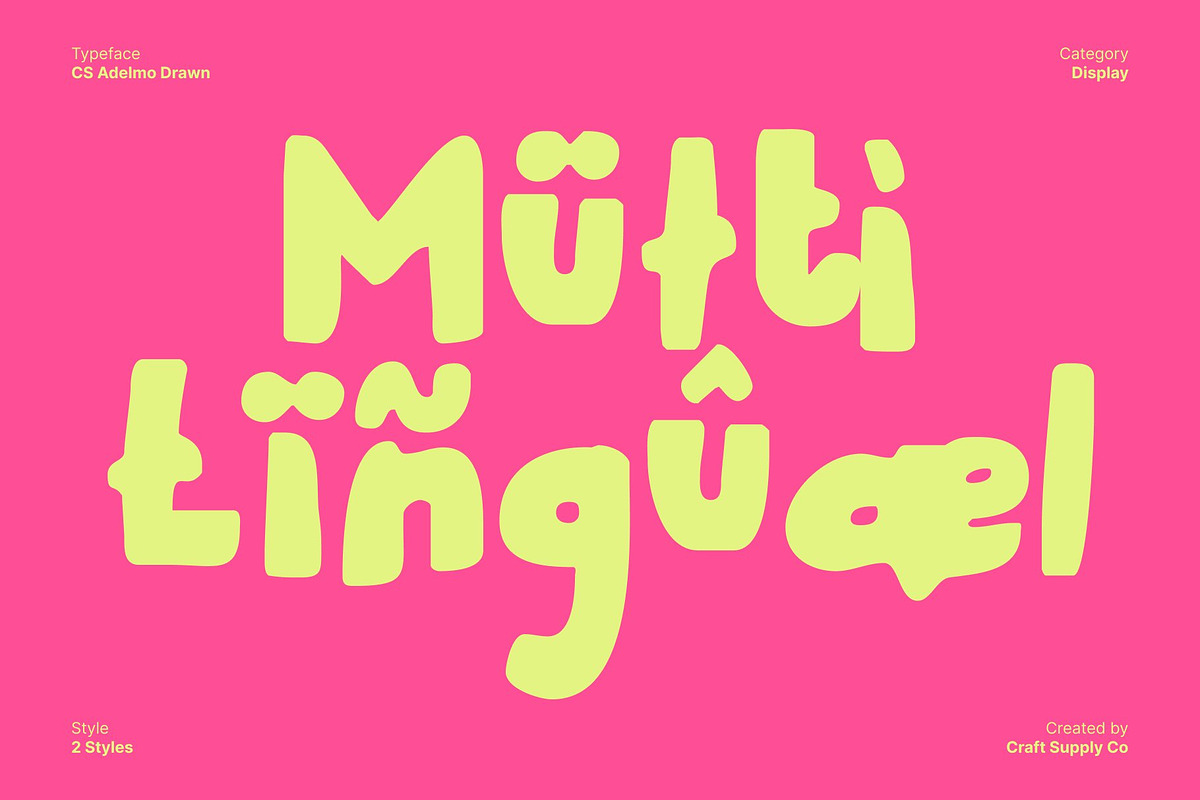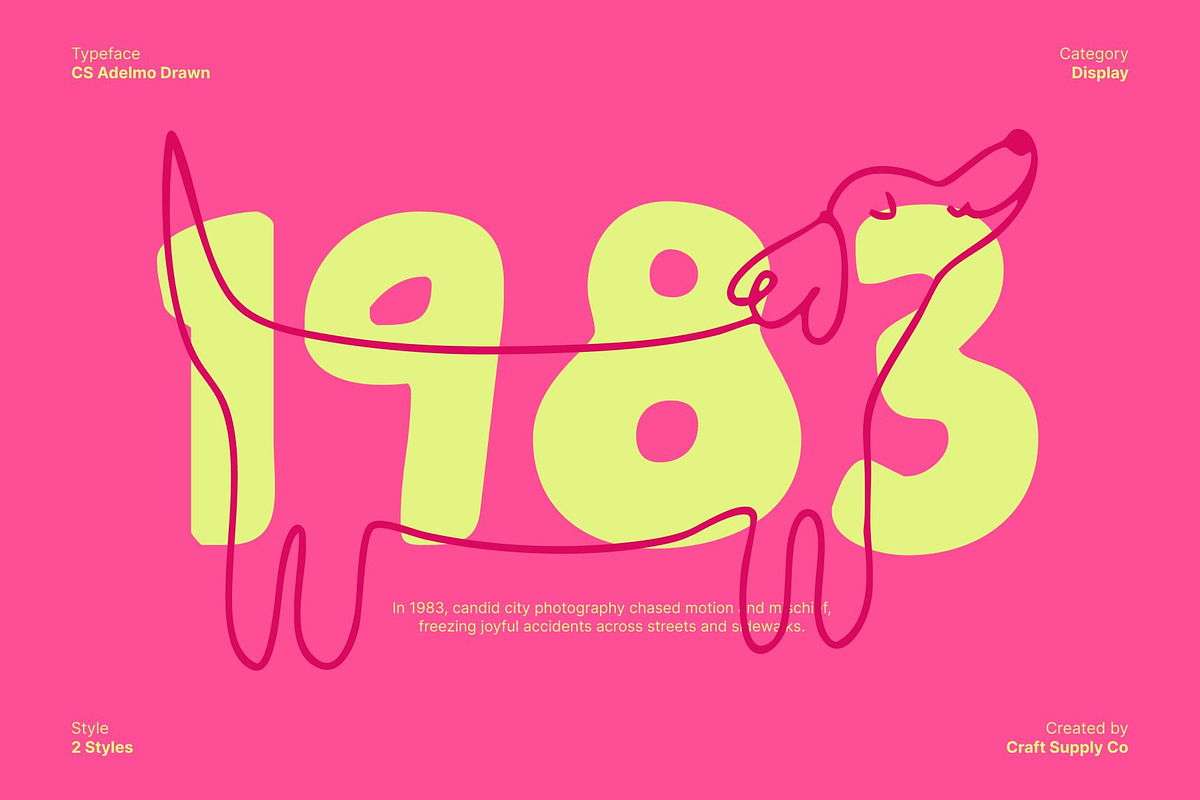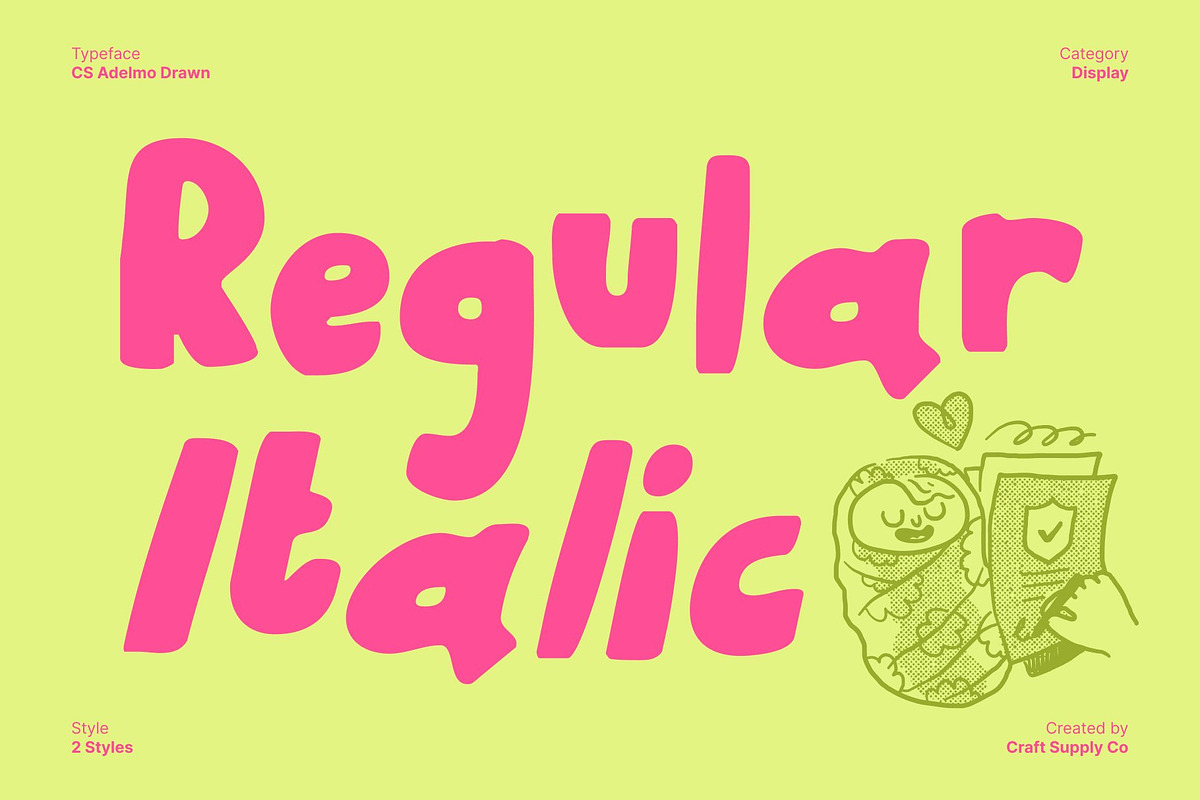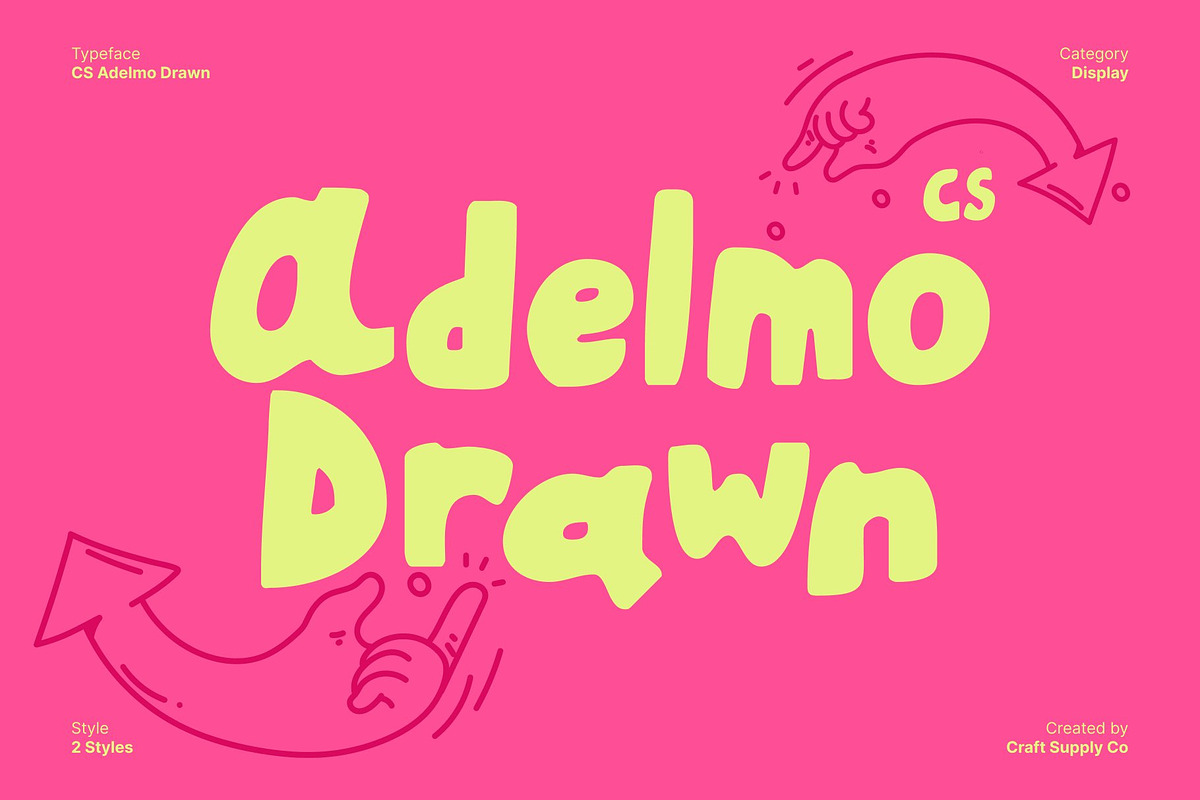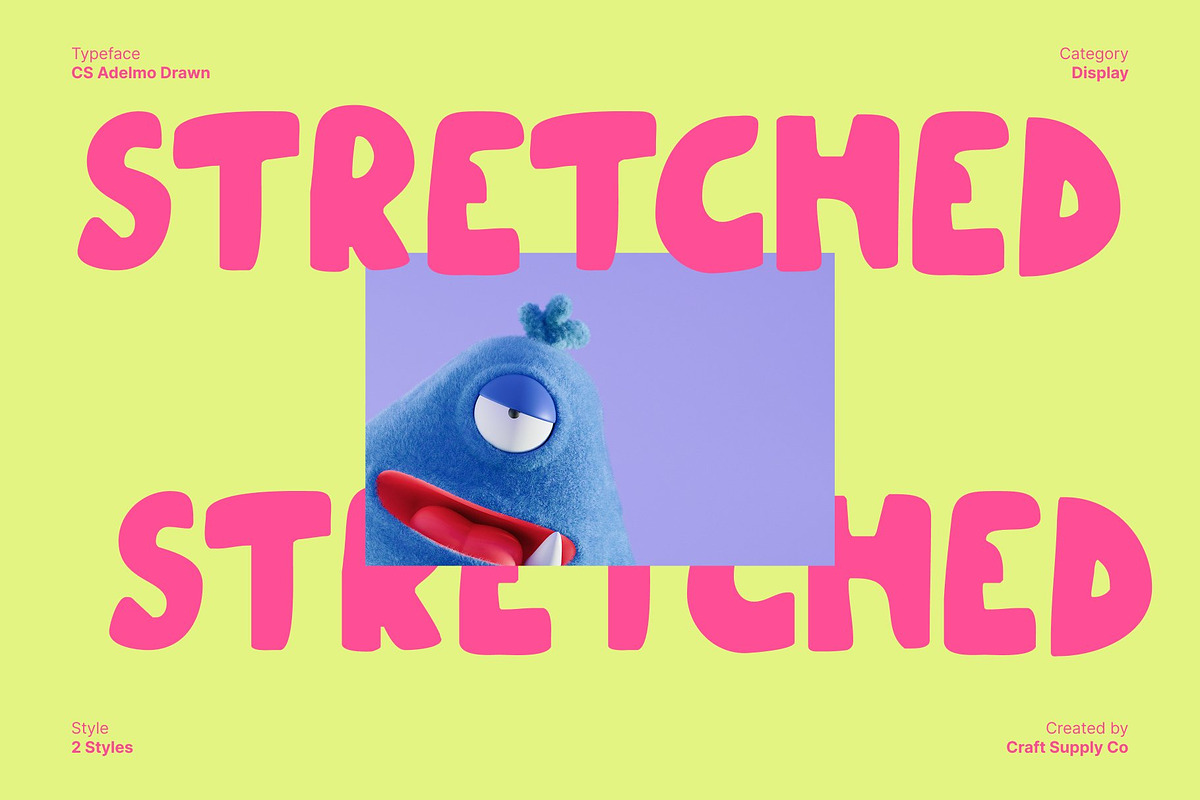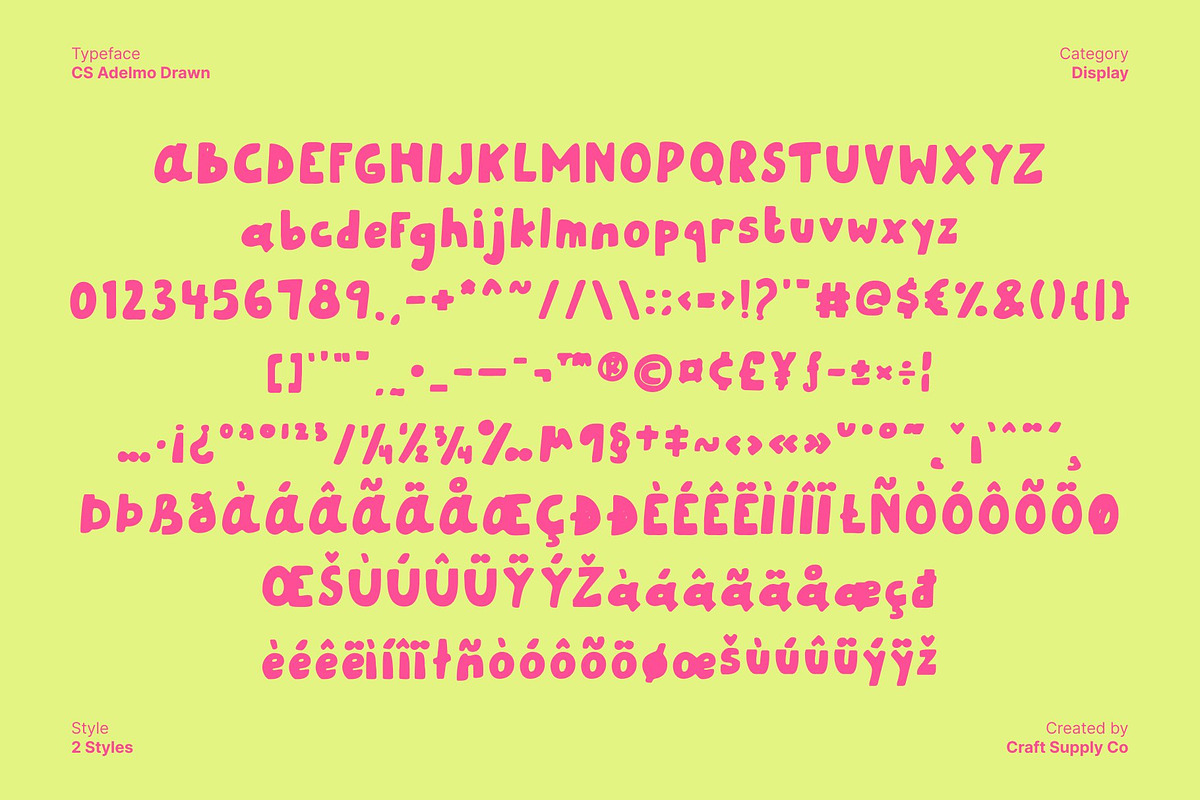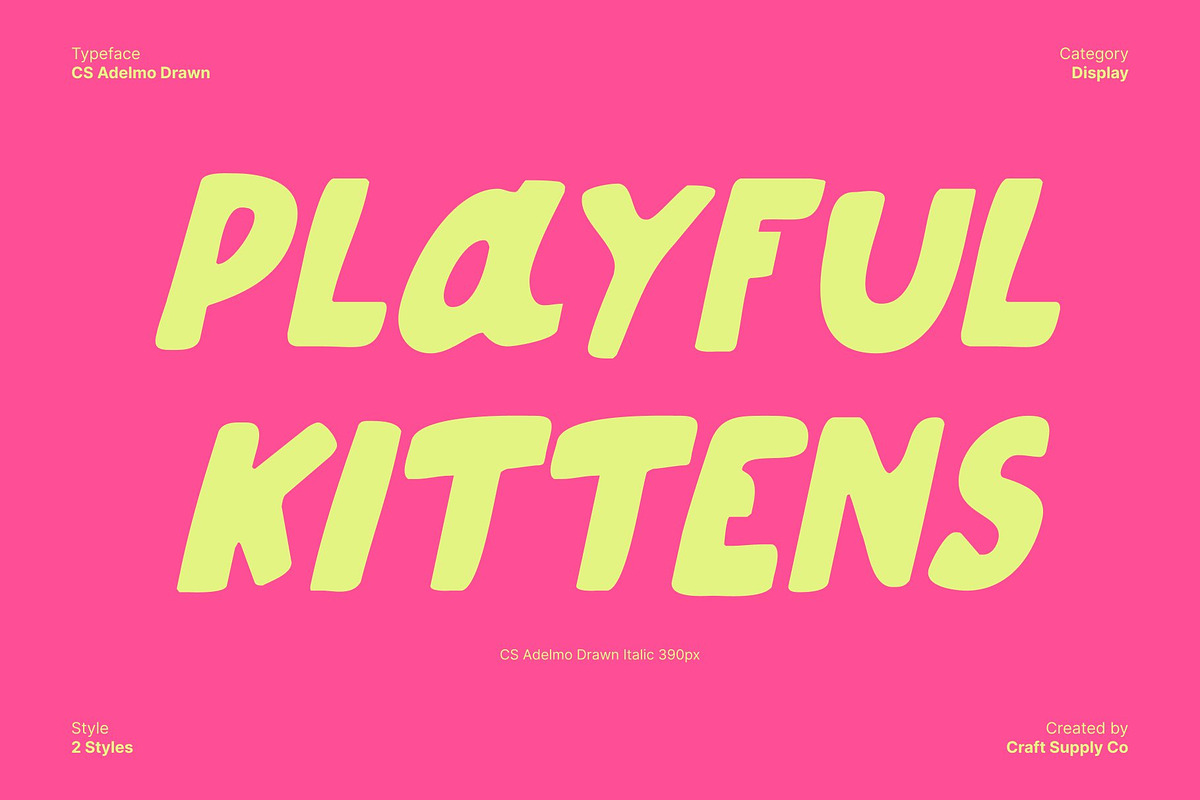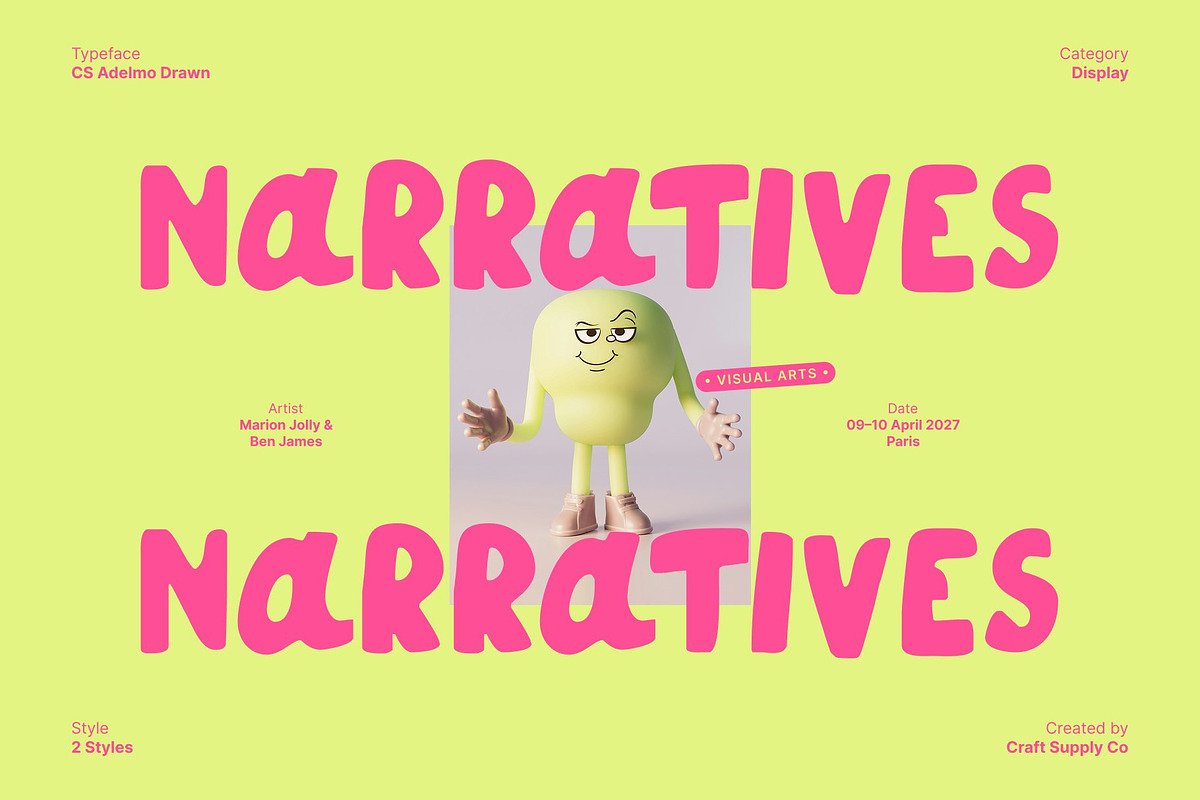
CS Adelmo Drawn
CS Adelmo Drawn – Modern Handwritten Display Full of Cheerful Expression
Modern Character with Playful Handwritten Charm This is a modern display font infused with lively handwritten energy. Its naturally drawn strokes bring spontaneity and warmth to every letter, creating a friendly and expressive rhythm. The balance between modern structure and handcrafted character gives this font a joyful, creative, and approachable personality.
Natural Strokes with an Authentic Personal Touch The drawn effect adds an organic flow that feels genuine and human. Each curve and line embraces subtle imperfections, celebrating the beauty of expressive handwriting. This natural texture enhances authenticity, making designs feel more personal, engaging, and full of character.
Cheerful Energy for Expressive Designs With its playful forms and upbeat attitude, this font brings a sense of happiness and creativity to any composition. The expressive letterforms inject positivity and charm, making it perfect for storytelling visuals, fun branding, and designs that aim to connect emotionally with audiences.
Perfect for Titles, Branding, and Creative Projects This font shines in titles, posters, branding, packaging, social media graphics, and creative projects that need bold personality. Its modern handwritten appeal makes it ideal for youthful brands, event visuals, and artistic displays that want to feel fresh, cheerful, and full of life.